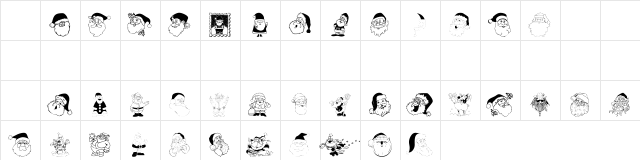
101! Jolly Chubby Guy in Red Regular
Design Context for 101! Jolly Chubby Guy in Red Typeface
101! Jolly Chubby Guy in Red is a composed and adaptable typeface that performs quietly and consistently across a wide range of design contexts.
Pro Tip: Use 101! Jolly Chubby Guy in Red in both headline and body roles to test its range before committing to a single application.